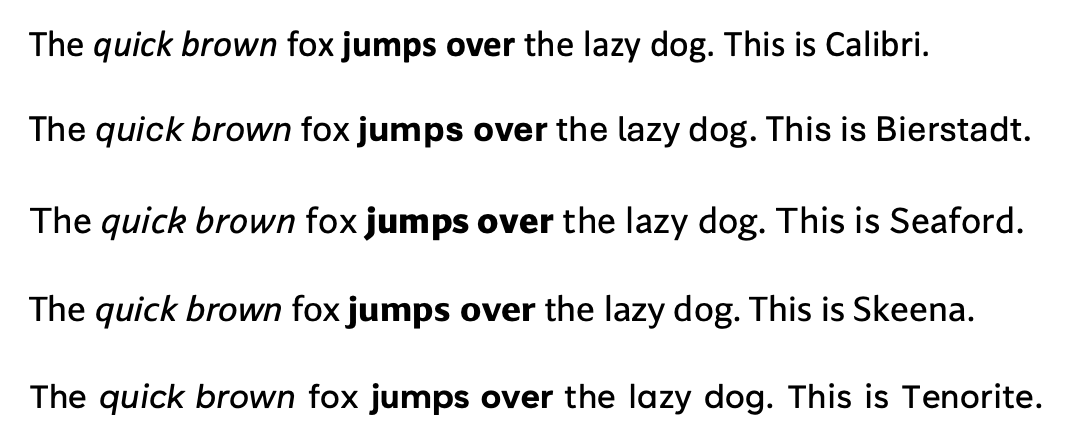
Calibri, we hardly knew ye. Microsoft’s default font for all its Office products (and built-in apps like WordPad) is on its way out and the company now needs your help picking a new one. Let’s judge the options!
You probably don’t think much about Calibri, if you think about fonts at all, but that’s a good thing in this context. A default font should be something you don’t notice and don’t feel the need to change unless you want something specific. Of course the switch from Times New Roman back in 2007 was controversial — going from a serif default to a sans serif default ruffled a lot of feathers. Ultimately it proved to be a good decision, and anyway TNR is still usually the default for serif-specified text.
To be clear, this is about defaults for user-created stuff, like Word files. The font used by Microsoft in Windows and other official brand things is Segoe UI, and there are a few other defaults mixed in there as well. But from now on making a new document in an Office product would default to using one of these, and the others will be there as options.
Replacing Calibri with another friendly-looking universal sans serif font will be a considerably less dramatic change than 2007’s, but that doesn’t mean we can’t have opinions on it. Oh no. We’re going to get into it. Unfortunately Microsoft’s only options for seeing the text, apart from writing it out in your own 365 apps, are the tweet (doesn’t have all the letters) or some colorful but not informative graphic presentations. So we (and by we I mean Darrell) made our own little specimen to judge by:
You may notice Grandview is missing. We’ll get to that. Starting from the top:
Calibri, here for reference, is an inoffensive, rather narrow font. It gets its friendly appearance from the tips of the letters, which are buffed off like they were afraid kids might run into them. At low resolutions like we had in 2007 this didn’t really come across, but now it’s more obvious and actually a little weird, making it look a bit like magnetic fridge letters.
Bierstadt is my pick and what I think Microsoft will pick. First because it has a differentiated lowercase l, which I think is important. Second, it doesn’t try anything cute with its terminals. The t ends without curling up, and there’s no distracting tail on the a, among other things — sadly the most common letter, lowercase e, is ugly, like a chipped theta. Someone fix it. It’s practical, clear and doesn’t give you a reason to pick a different font. First place. Congratulations, designer Steve Matteson.
Tenorite is my backup pick, because it’s nice but less practical for a default font. Geometric sans serifs (look at the big fat “dog,” all circles) look great at medium size but small they tend to make for weird, wide spacing. Look at how Bierstadt makes the narrow and wide letters comparable in width, while in Tenorite they’re super uneven, yet both are near the same total length. Also, no, we didn’t mess with the kerning or add extra spaces to the end in “This is Tenorite.” That’s how it came out. Someone fix it! Second Place.
Skeena, apart from sounding like a kind of monster you fight in an RPG, feels like a throwback. Specifically to Monaco, the font we all remember from early versions of MacOS (like System 7). The variable thickness and attenuated tails make for an interesting look in large type, but small it just looks awkward. Best e of the bunch, but something’s wrong with the g, maybe. Someone might need to fix it. Third place.
Seaford is an interesting one, but it’s trying too hard with these angular loops and terminals. The lowercase k and a are horrifying, like broken pretzels. The j looks like someone kicked an i. The d looks like it had too much to eat and is resting its belly on the ground. And don’t get me started on the bent bars of the italic w. Someone fix it. I like the extra strong bold and the g actually works, but this would really bug me to use every day. Fourth Place.
Grandview didn’t render properly for us. It looked like Dingbats in regular, but was fine in bold and italic. Someone fix it. Fortunately I feel confident it won’t be the next default. It’s not bad at all, but it’s inhuman, robotic. Looks like a terminal font no one uses. See how any opportunity there is for a straight line is taken? Nice for a logo — feels strong structurally — but a paragraph of it would look like a barcode. Use it for H2 stuff. Last place.
So what should you “vote” for by tweeting hard at Microsoft? Probably it doesn’t matter. I’m guessing they’ve already picked one. Bierstadt is the smart pick, because it’s good in general while the others are all situational. If they would only fix that damn e.